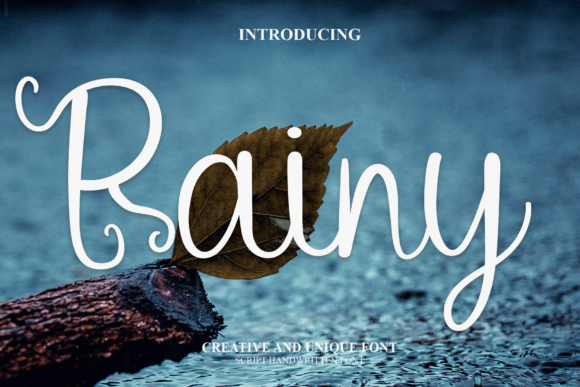
About Rainy Font
“Rainy” is a charming handwritten font that has been meticulously crafted to achieve the desired outcomes. This font is versatile and can be utilized to write a wide array of products, tailored to meet their specific requirements.
The font’s sweet handwritten style carries a sense of warmth and personal touch. Whether you’re working on projects that demand a friendly and approachable vibe, “Rainy” can enhance your work with its carefully crafted and artistically pleasing aesthetic.
The font’s adaptability allows it to suit diverse contexts and projects, making it well-suited for various creative applications. Its sweet charm adds a personal and relatable aspect to your designs, making it suitable for a range of design needs.
In essence, “Rainy” is more than just a font—it’s a creative tool designed to elevate your design projects. Its handwritten style and versatility make it a valuable asset for designers striving to create designs that are visually appealing, approachable, and adaptable to different design contexts, leaving a memorable impact.